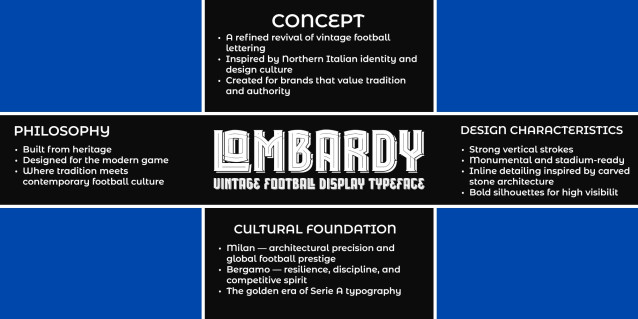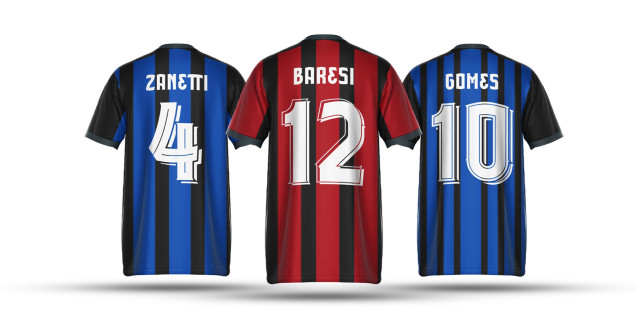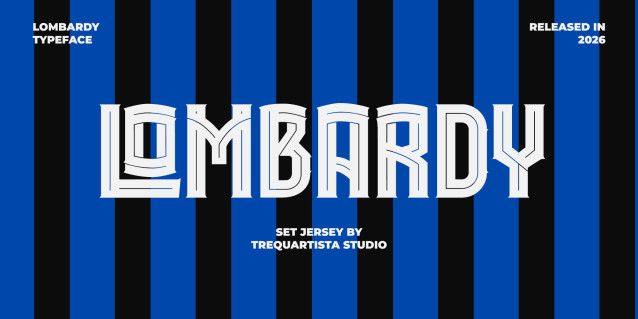
Lombardy Font
Lombardy Font is a bold display typeface inspired by the rich football culture of Northern Italy — particularly the cities of Milan and Bergamo. Rooted in the aesthetics of classic Serie A jersey lettering from the 80s and 90s, Lombardy captures the spirit of vintage stadium typography while delivering modern precision and clarity.
Designed with strong vertical structures and refined inline detailing, this typeface reflects the monumental character of Northern Italian architecture and the disciplined identity of its football tradition.Lombardy is not decorative nostalgia — it is heritage redefined for contemporary sports design.